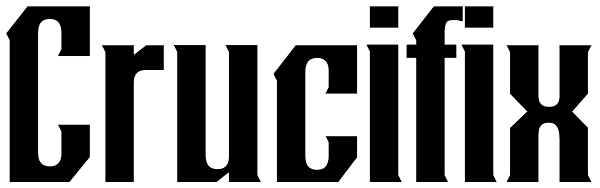
Crucifix
In June of 2004, Canada Type released Crucifix, a condensed three-tiers typeface that tried to bridge the gap between traditional blackletter forms and the traditional European gothics. The main goal of Crucifix was to have as many as 4 different...
Crucifix
Crucifix Small Caps
Crucifix Unicase